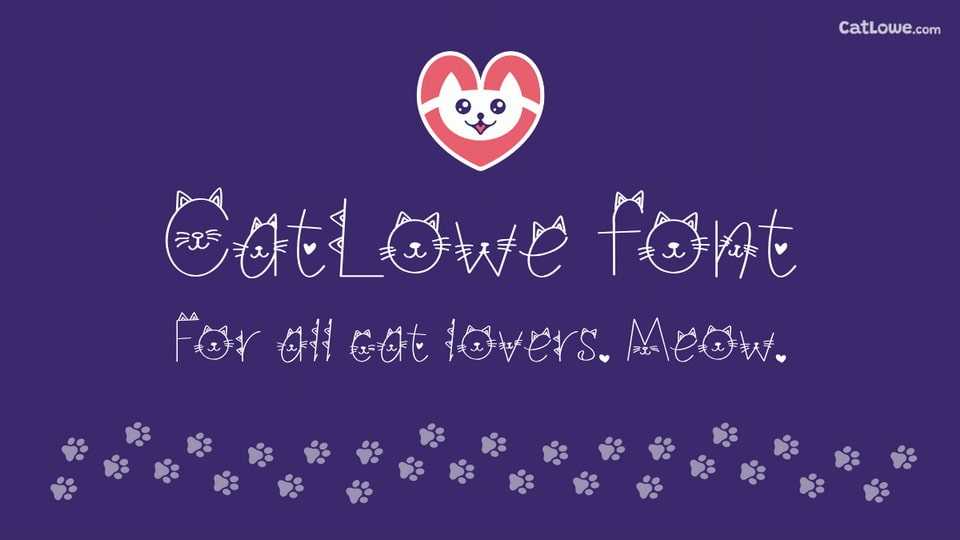
Download CatLowe Cat font, a purrfectly playful typeface packed with charm. Every letter is styled with adorable kitty details, from tiny ears to cute whiskers.